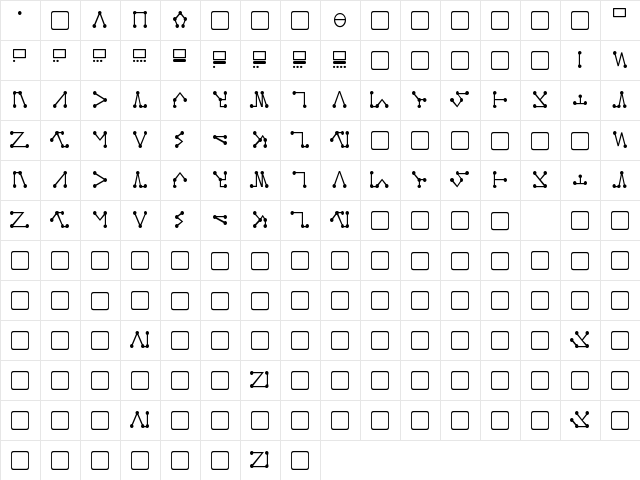
Spellweaver Nodes Regular
Design Context for Spellweaver Nodes Typeface
Spellweaver Nodes is a composed and adaptable typeface that performs quietly and consistently across a wide range of design contexts.